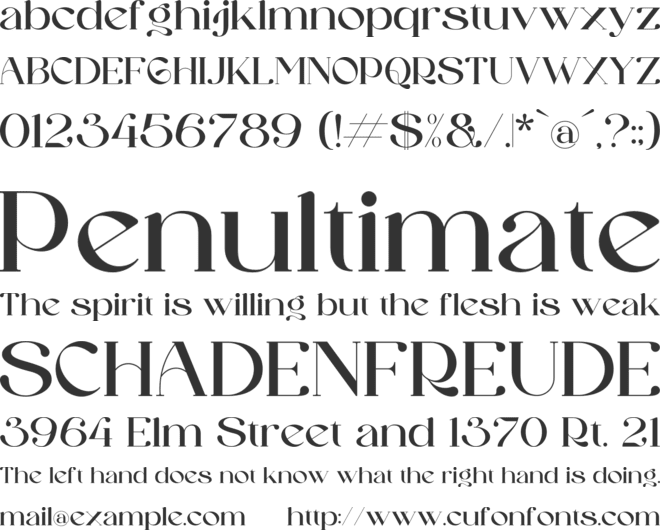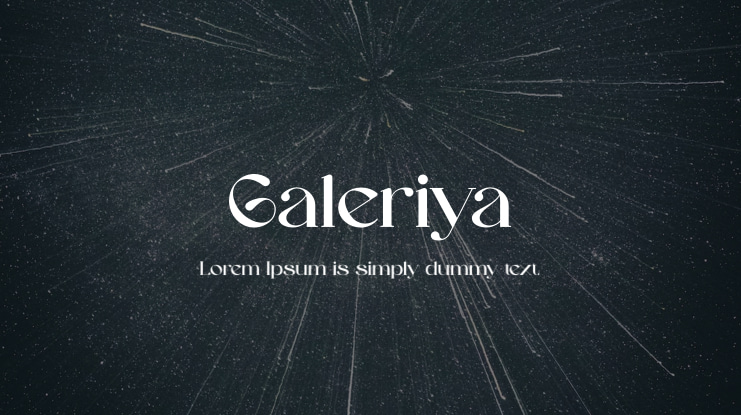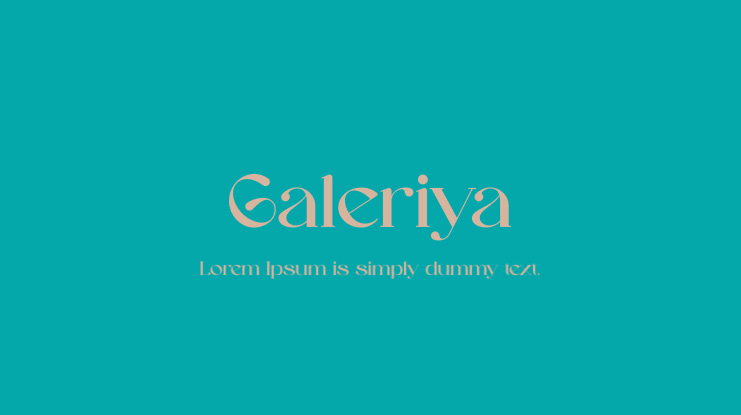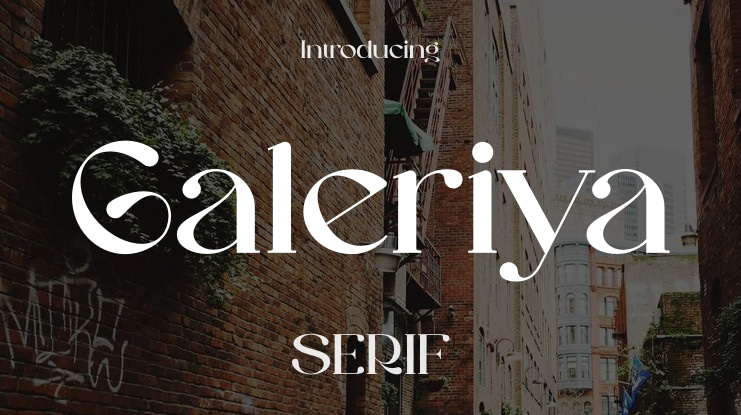
Galeriya | Modern Serif is a versatile font suitable for various projects including logos, branding, homeware designs, packaging, merchandise, quotes, posters, apparel, book covers, business cards, invitations, greeting cards, labels, photography, watermarks, events, and more, that require a distinctive serif style.